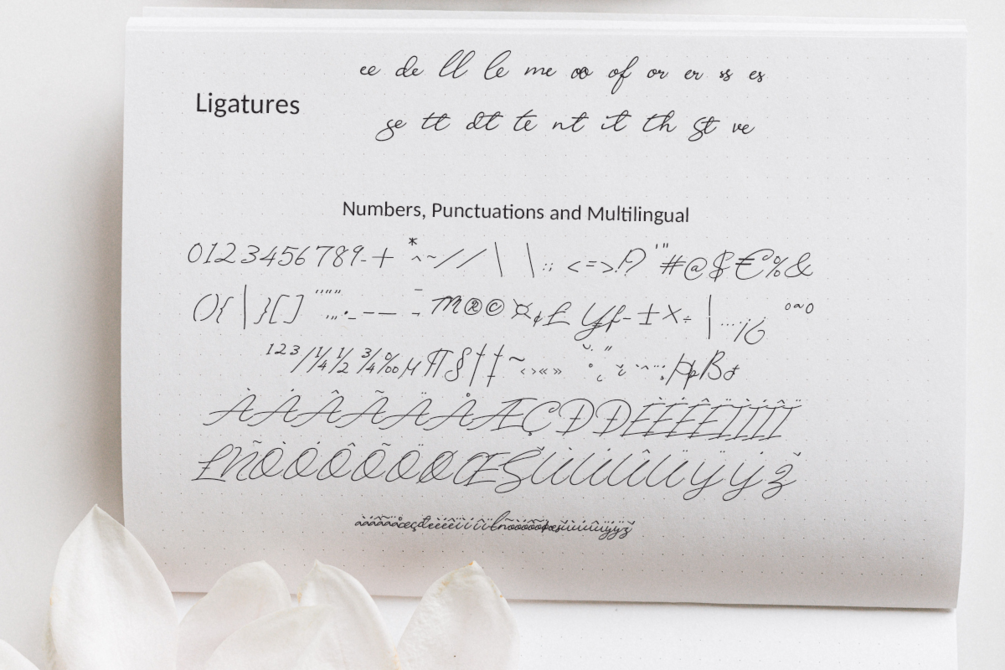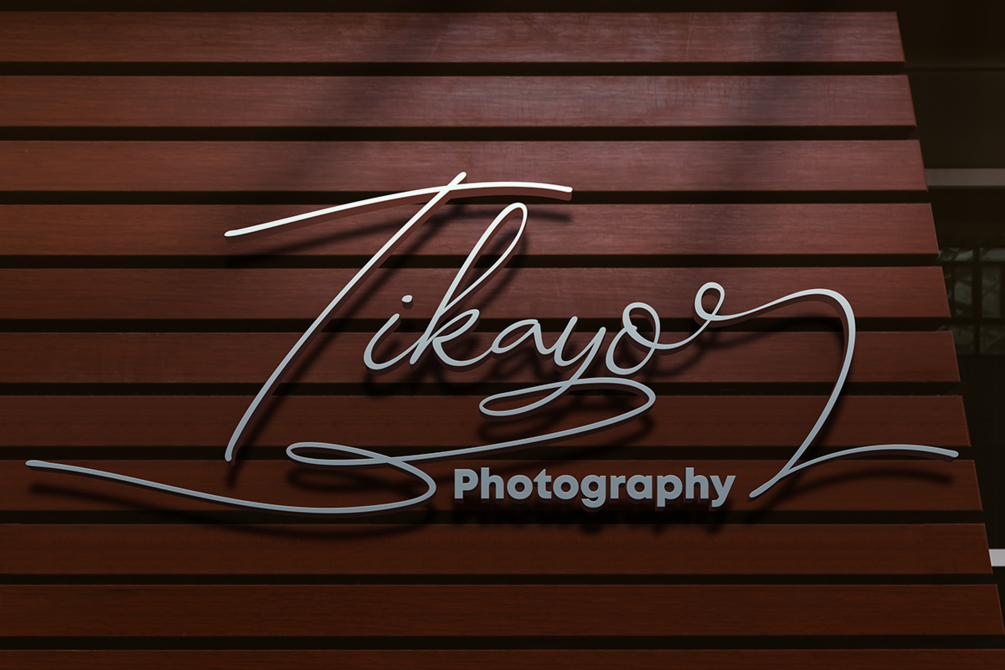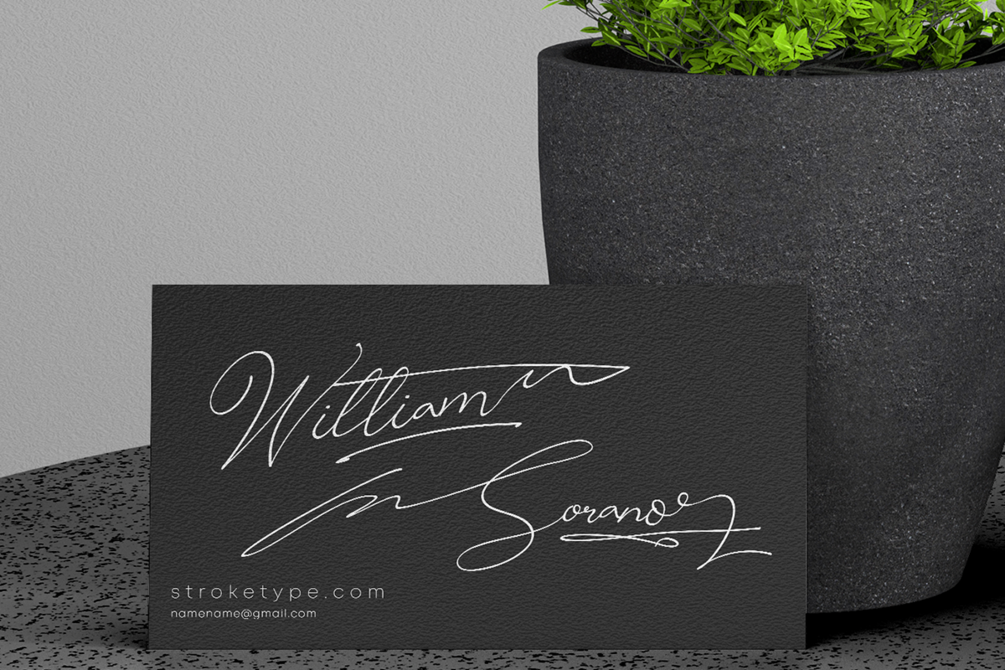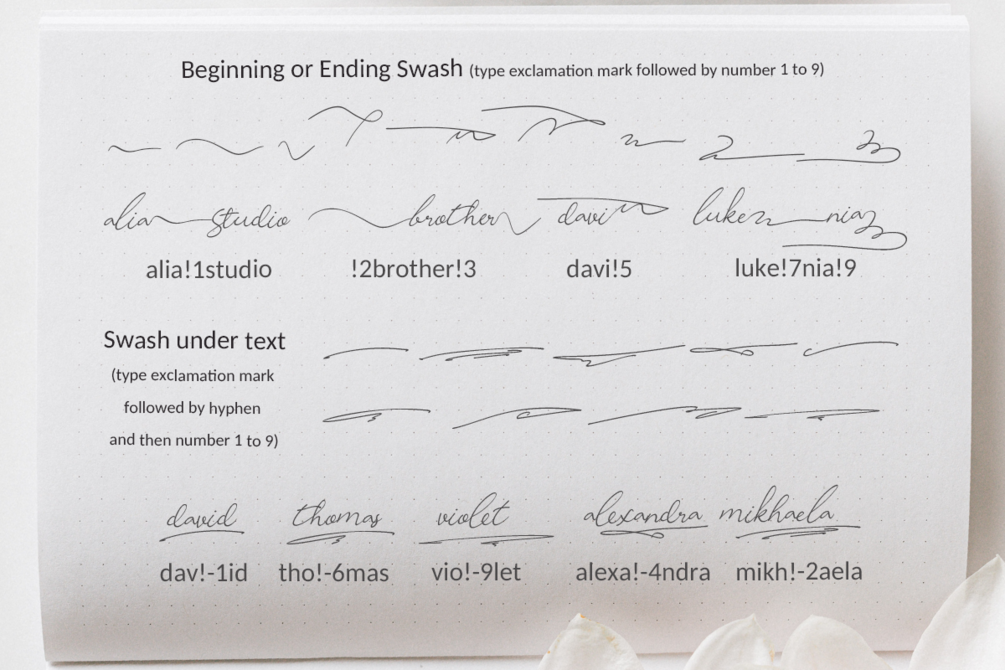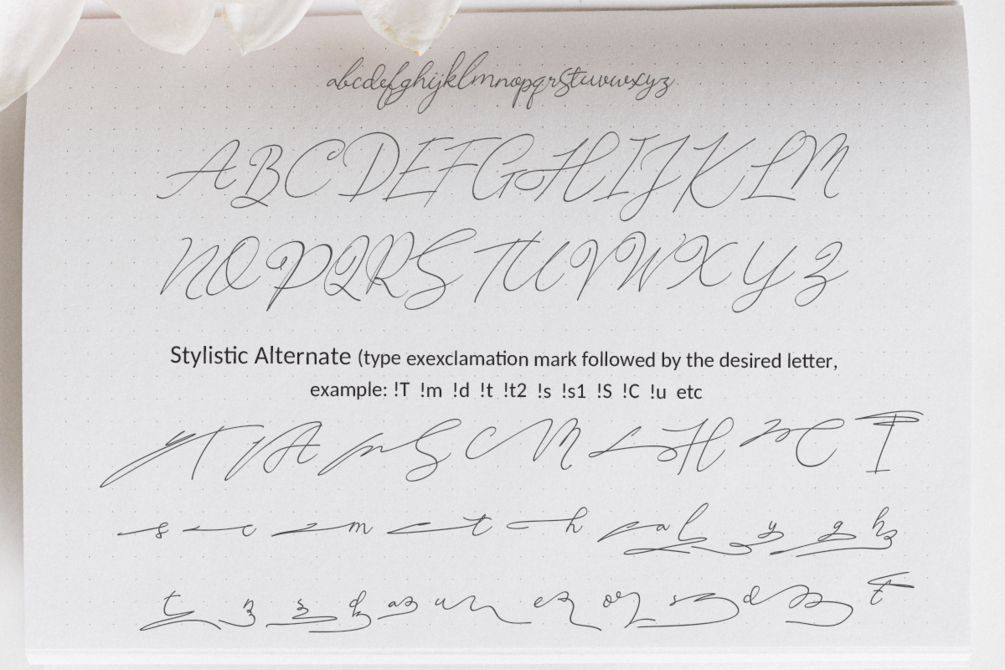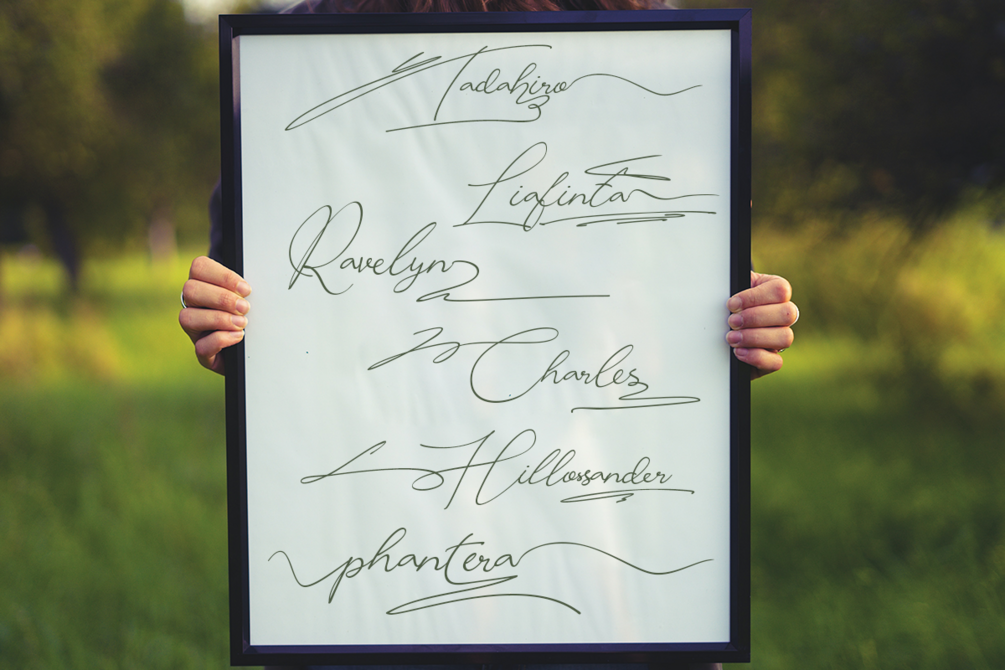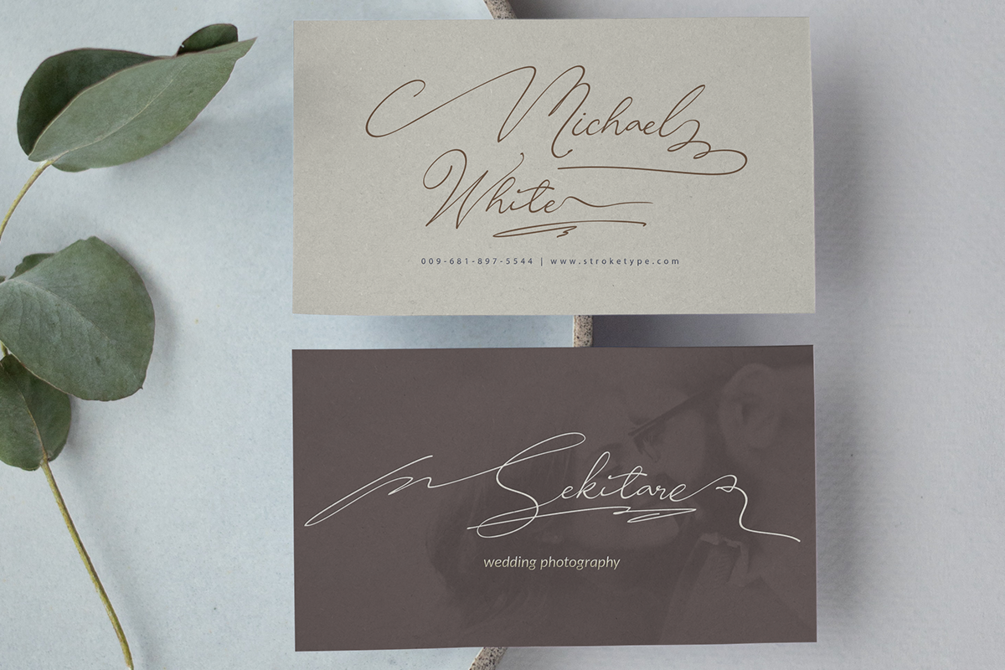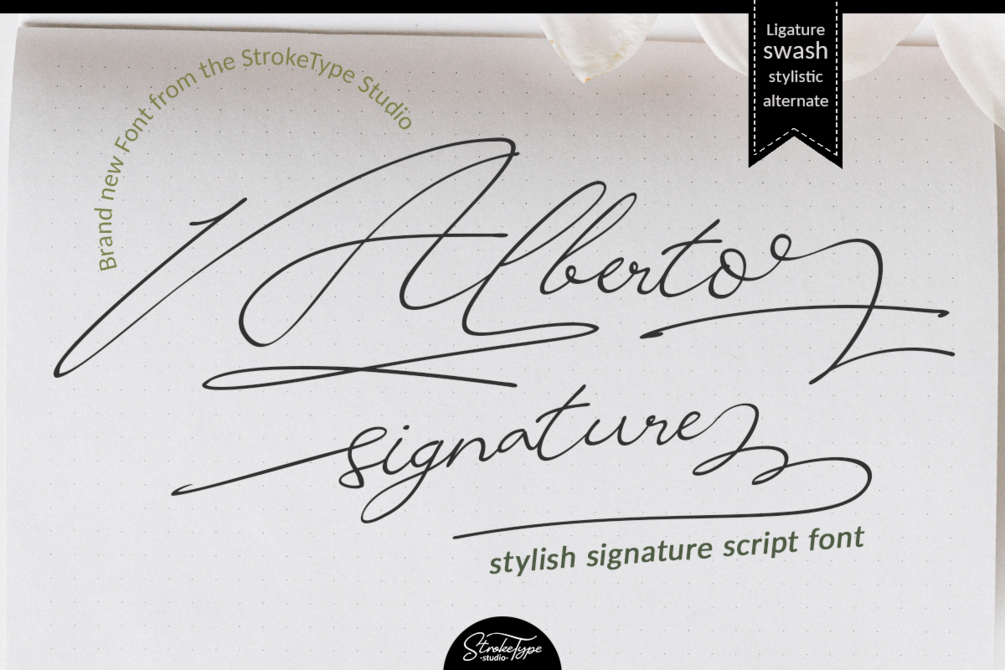
Alberto Signature Font
Introducing the stylish Alberto Signature Font!
Alberto Signature is a font with Signature style, but with the vibe of real hand lettering, with a lot of swashes, ligatures and stylistic alternate, Alberto Signature Font is perfect for many different project such as logos & branding, invitation, wedding designs, social media posts, advertisements, product packaging, product designs, label, photography, watermark, special events or anything.
FEATURES
- Uppercase and Lowercase letters
- Numbering and Punctuations
- Multilingual Support
- Ligatures
- Beginning and ending swashes
- Bottom swashes
- Stylistic alternate.